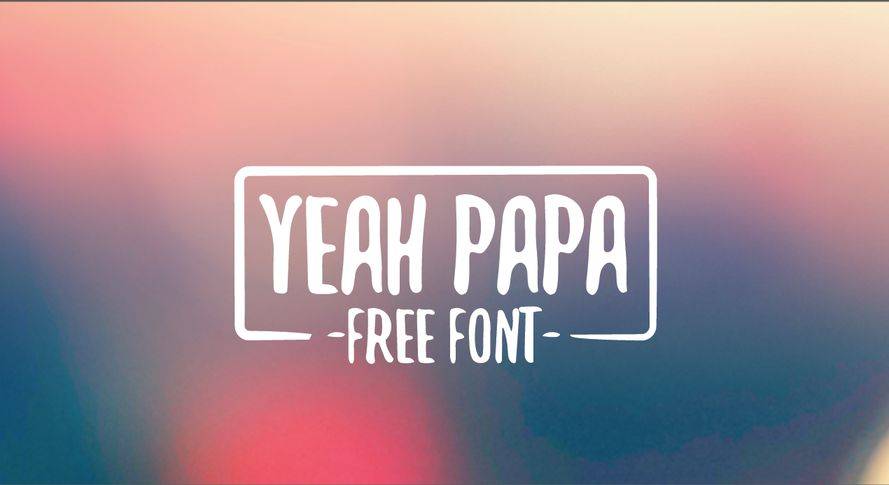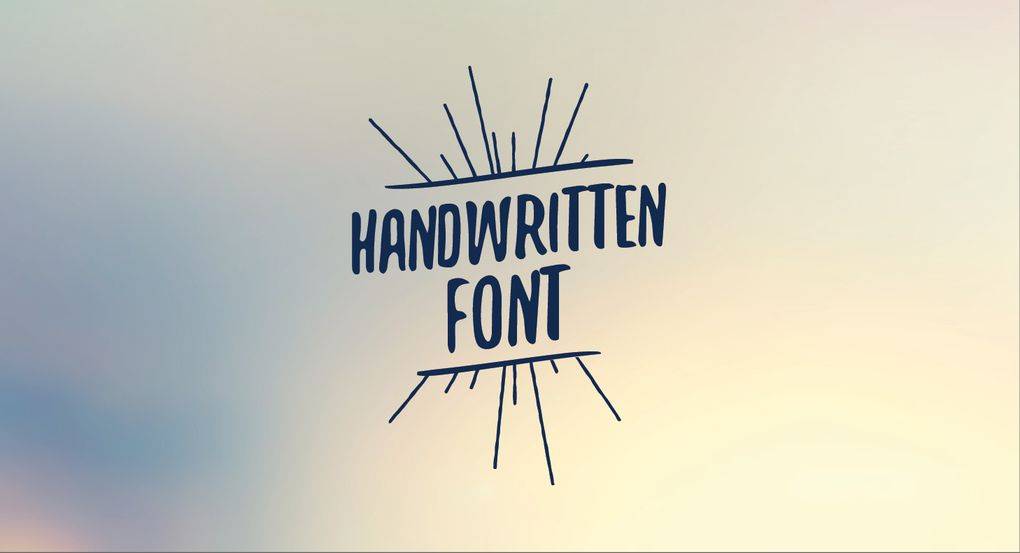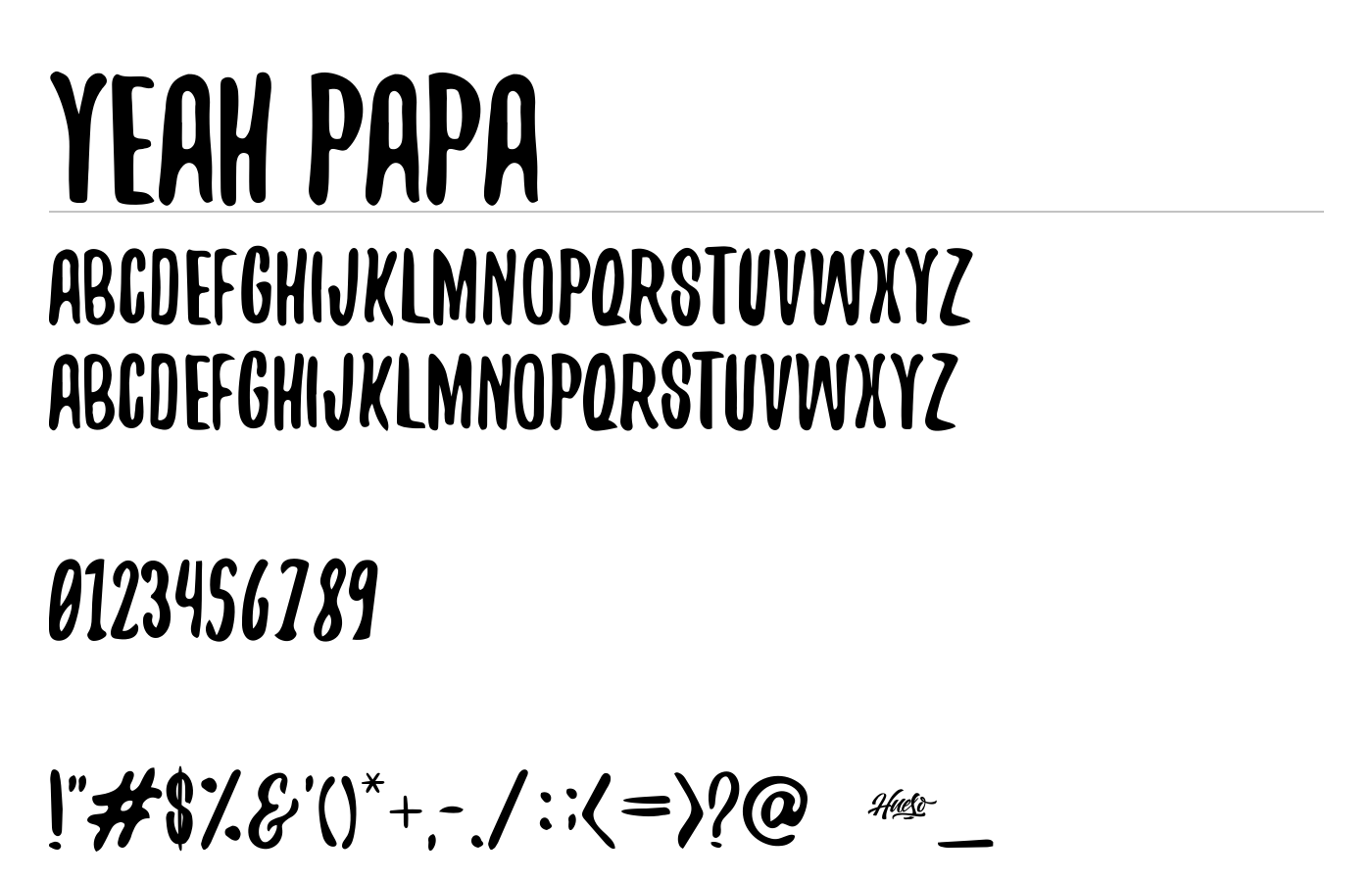
Yeah Papa is a playful and bold sans serif font with a tall, narrow structure and rounded, hand-drawn letterforms that give it a friendly, casual vibe. Its consistent stroke weight and slightly quirky shapes make it ideal for fun, eye-catching headlines, posters, and branding that want to convey energy and approachability. This font works especially well for creative projects or products aimed at a youthful, lively audience.
Yeah Papa Font
About Yeah Papa Font
| Font family | Yeah Papa Font |